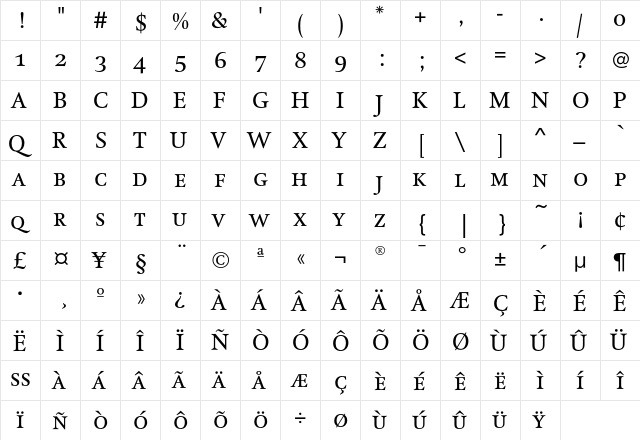
HollanderSCEF-Regular Regular
Design Context for HollanderSCEF-Regular Typeface
HollanderSCEF-Regular is a composed and adaptable typeface that performs quietly and consistently across a wide range of design contexts.